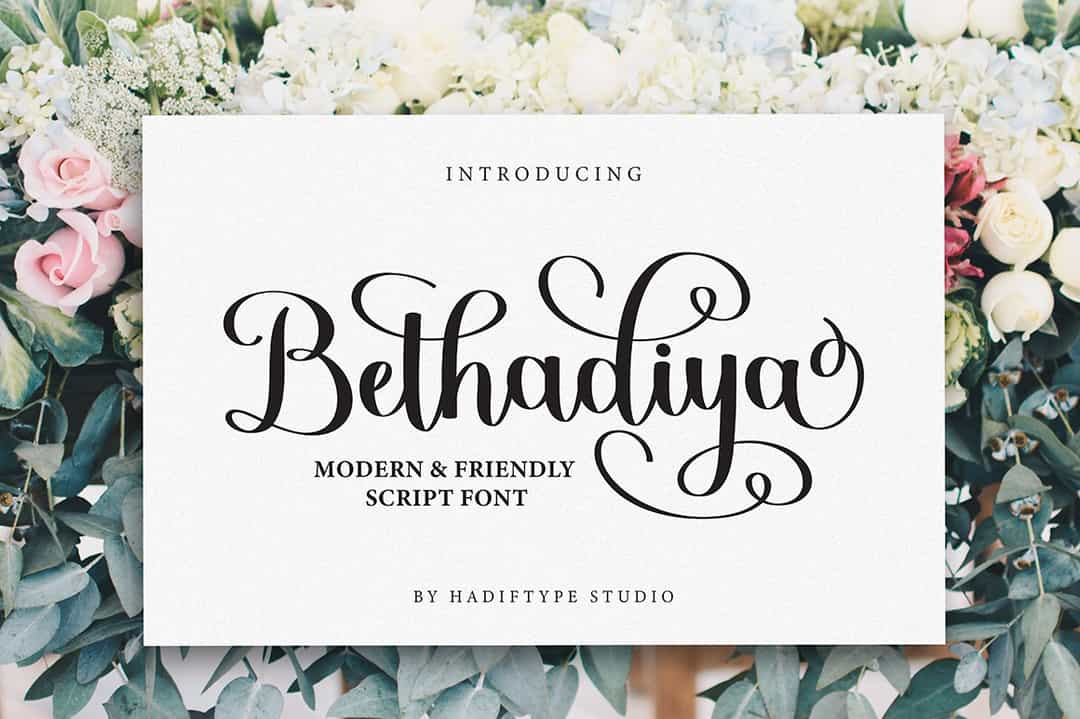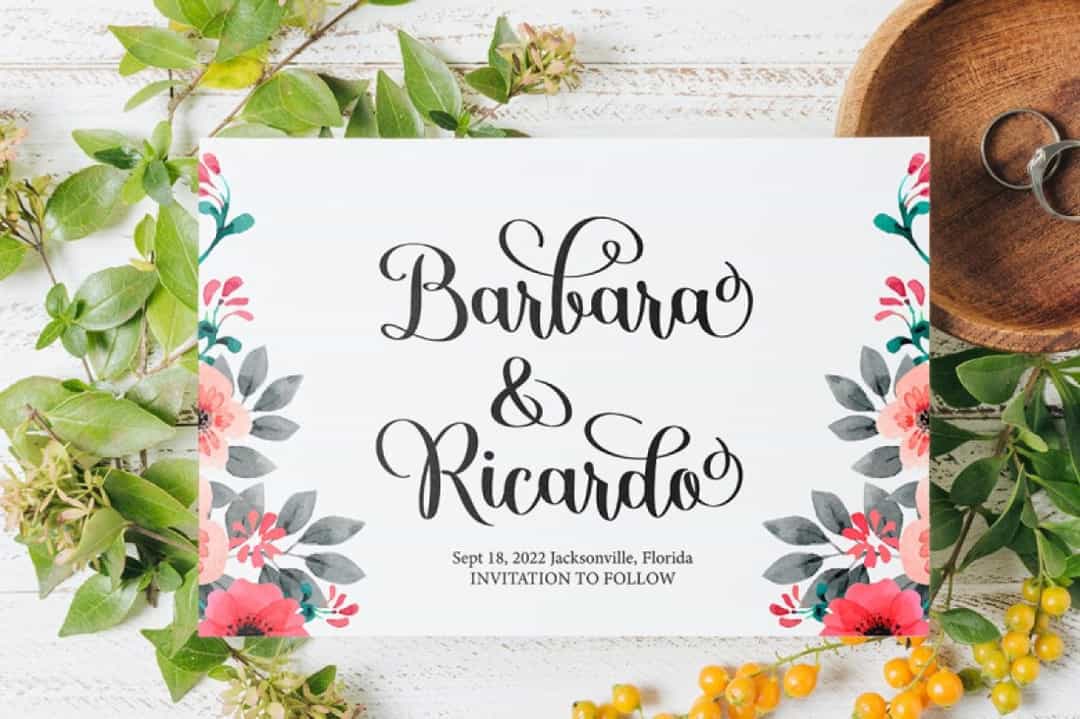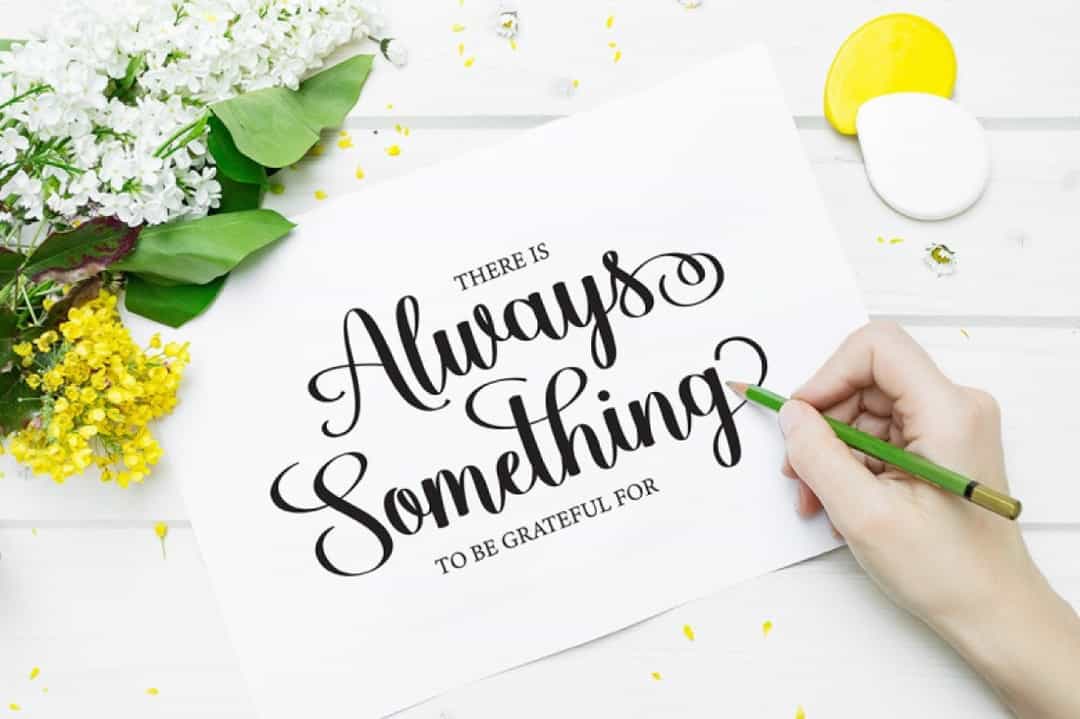
Bethadiya Calligraphy Font is an elegant decorative script typeface with beautiful ornaments. No matter the subject matter or situation it will make an incredible addition to your font library and can amplify any other typeface! Bethadiya can be PUA encoded so you have access to all its glyphs and swashes with ease!